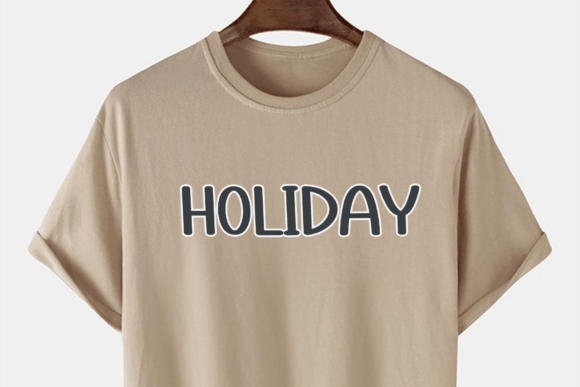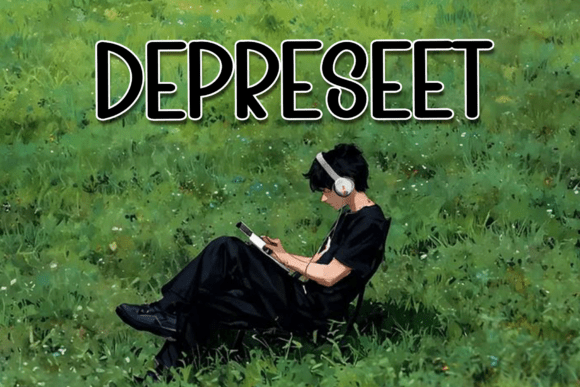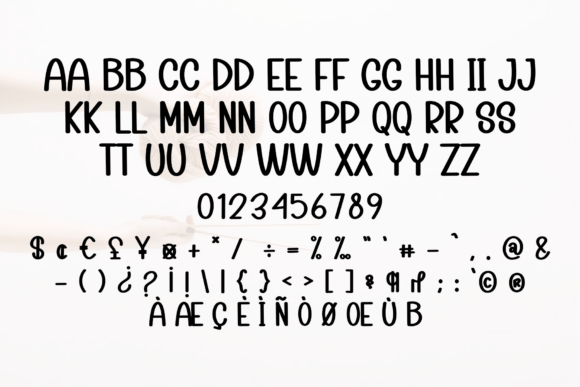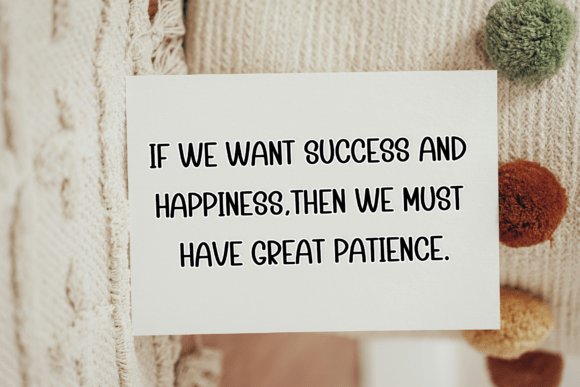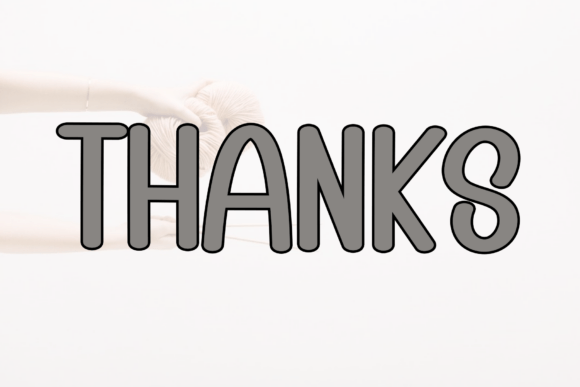
Introducing Handmade Font: The Sweet and Friendly Handwritten Font for Your Design Needs
Are you looking for a font that can add a personal touch to your designs? Do you want to create wedding invitations, cards, or other materials that exude warmth and friendliness? Look no further than Handmade Font, a beautiful handwritten font that’s perfect for designers and crafters alike.
What is Handmade Font?
Handmade Font is a sweet and friendly handwritten font that’s fresh and neat. Its unique charm makes it ideal for writing wedding invitations, cards, or any other design that might need a fun touch. This font is perfect for anyone who wants to add a personal and human element to their designs.
Characteristics of Handmade Font
So, what makes Handmade Font so special? Here are some of its key characteristics:
- Handwritten style: Handmade Font has a beautiful handwritten style that’s perfect for creating personal and intimate designs.
- Fresh and neat: This font is clean and easy to read, making it perfect for body text or headings.
- Sweet and friendly: Handmade Font has a warm and inviting feel that’s perfect for creating designs that are friendly and approachable.
- Versatile: This font is perfect for a wide range of design projects, from wedding invitations and cards to posters and social media graphics.
Uses for Handmade Font
So, what can you use Handmade Font for? Here are some ideas to get you started:
- Wedding invitations: Handmade Font is perfect for creating beautiful and personal wedding invitations that set the tone for your special day.
- Cards and stationery: This font is great for creating cards, stationery, and other paper goods that need a personal touch.
- Posters and flyers: Handmade Font can add a fun and playful touch to your posters and flyers.
- Social media graphics: This font is perfect for creating social media graphics that are friendly and approachable.
- Branding and packaging: Handmade Font can be used for branding and packaging projects that need a personal and human touch.
Why Choose Handmade Font?
So, why should you choose Handmade Font for your design projects? Here are some reasons:
- Unique and personal: Handmade Font adds a unique and personal touch to your designs.
- Easy to read: This font is clean and easy to read, making it perfect for body text or headings.
- Versatile: Handmade Font can be used for a wide range of design projects.
- High-quality: This font is of high quality, making it perfect for professional design projects.
Tips for Using Handmade Font
Here are some tips for using Handmade Font in your design projects:
- Use it for headings and titles: Handmade Font is perfect for headings and titles, where you want to add a personal touch.
- Pair it with other fonts: This font pairs well with other fonts, so feel free to experiment with different combinations.
- Use it for body text: Handmade Font is easy to read, making it perfect for body text.
- Experiment with colors: This font looks great in a variety of colors, so don’t be afraid to experiment.
In conclusion, Handmade Font is a beautiful handwritten font that’s perfect for designers and crafters who want to add a personal touch to their designs. Its unique charm, fresh and neat style, and sweet and friendly feel make it ideal for a wide range of design projects. Whether you’re creating wedding invitations, cards, posters, or social media graphics, Handmade Font is a great choice.